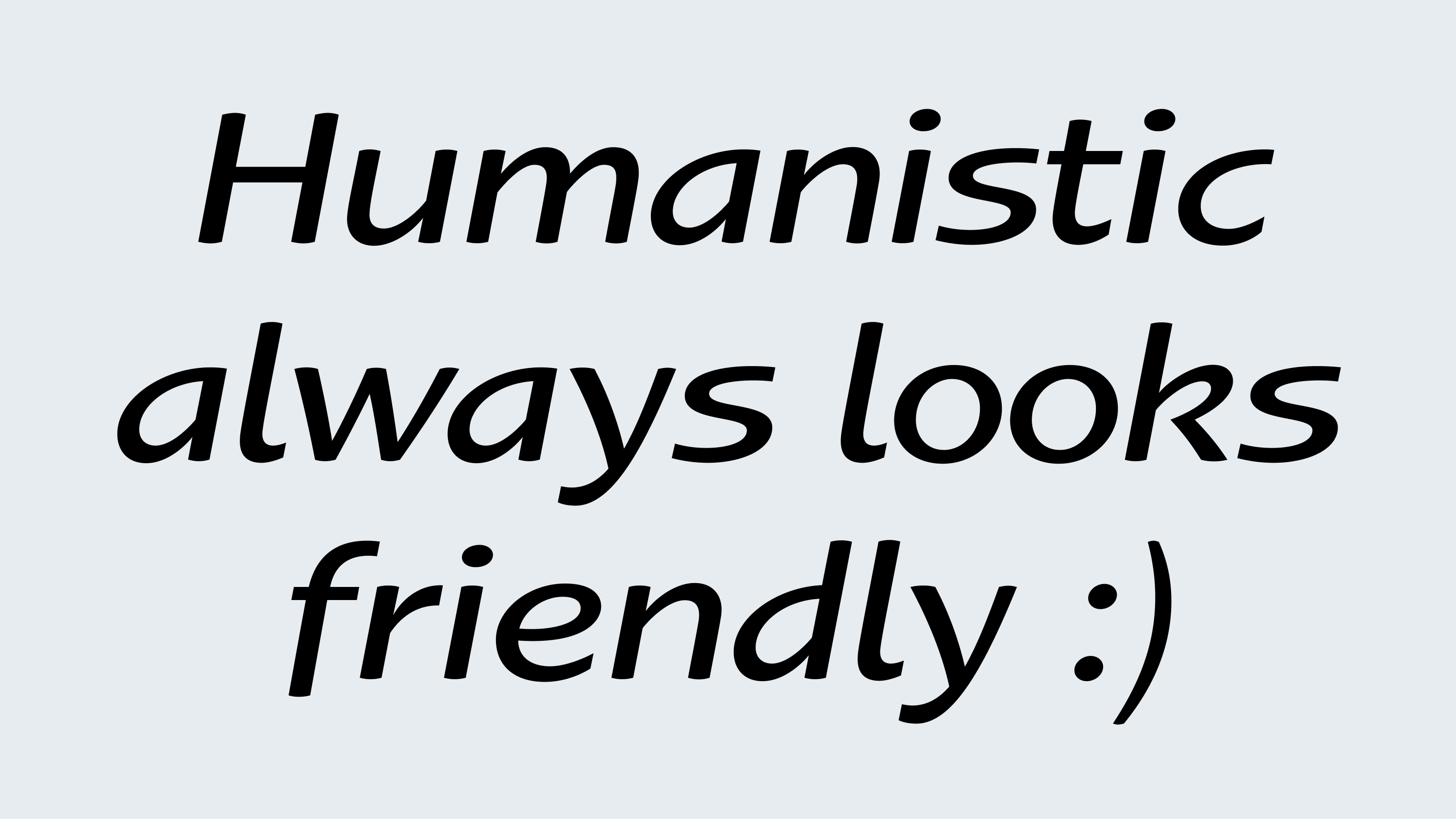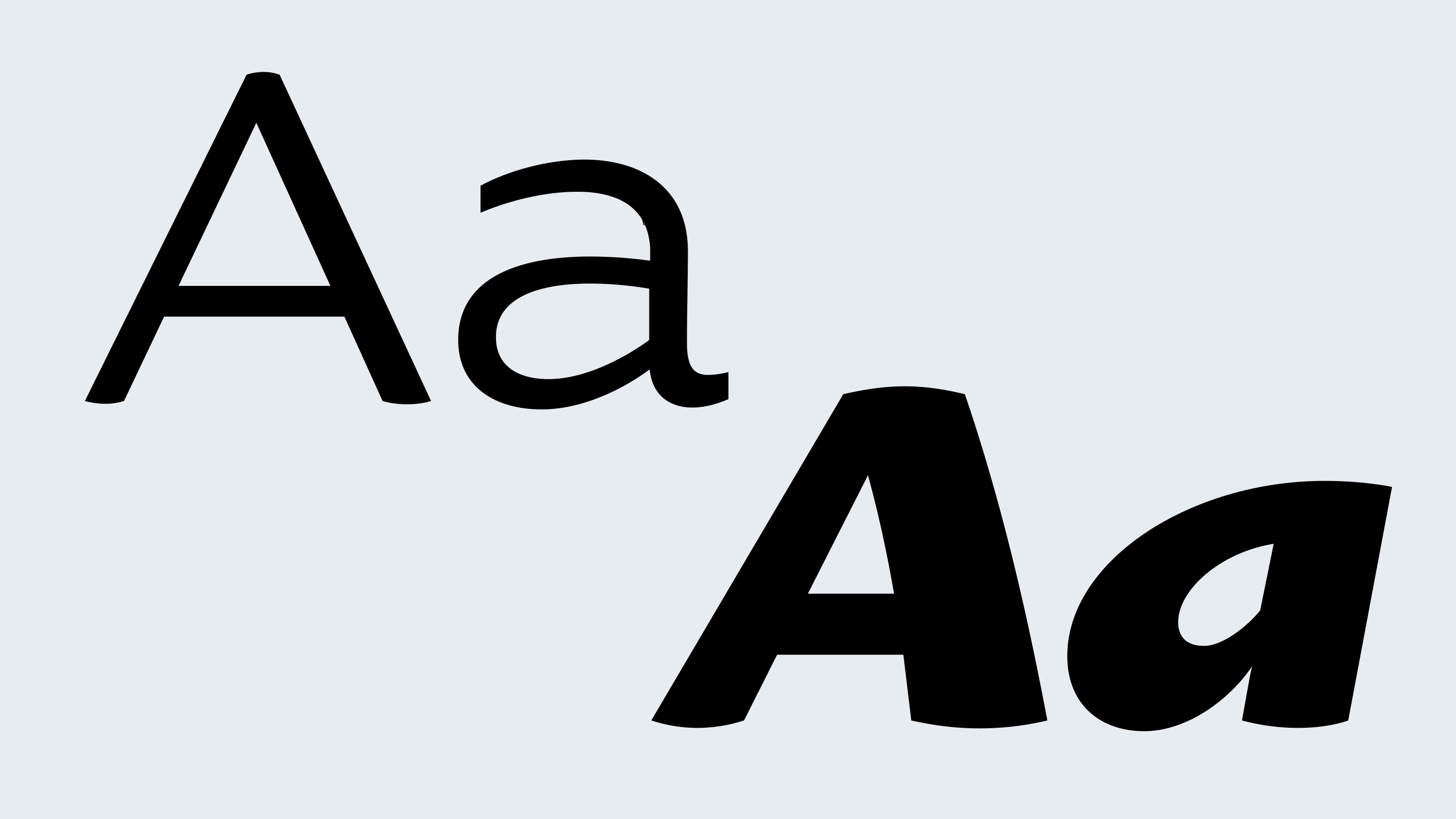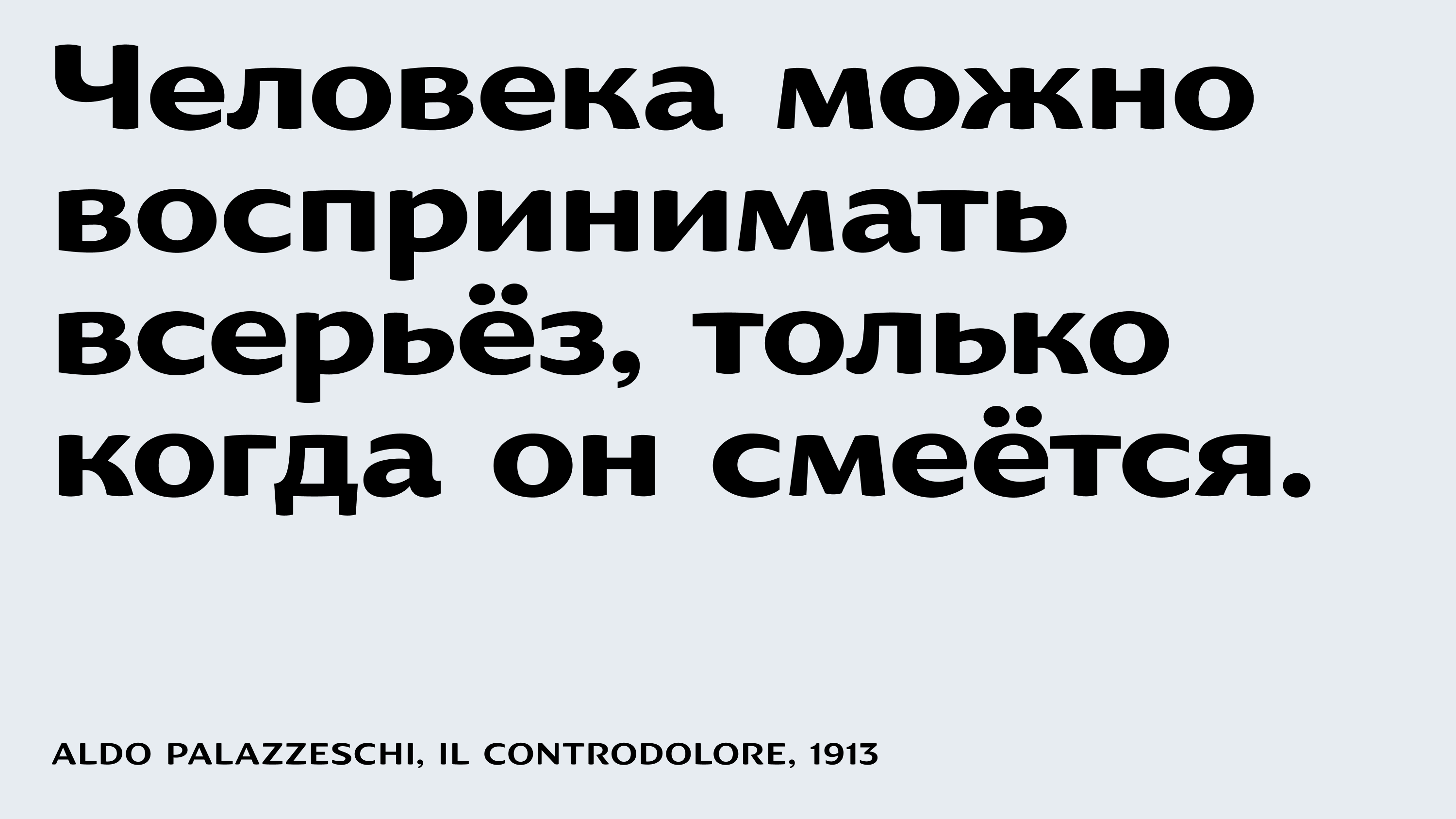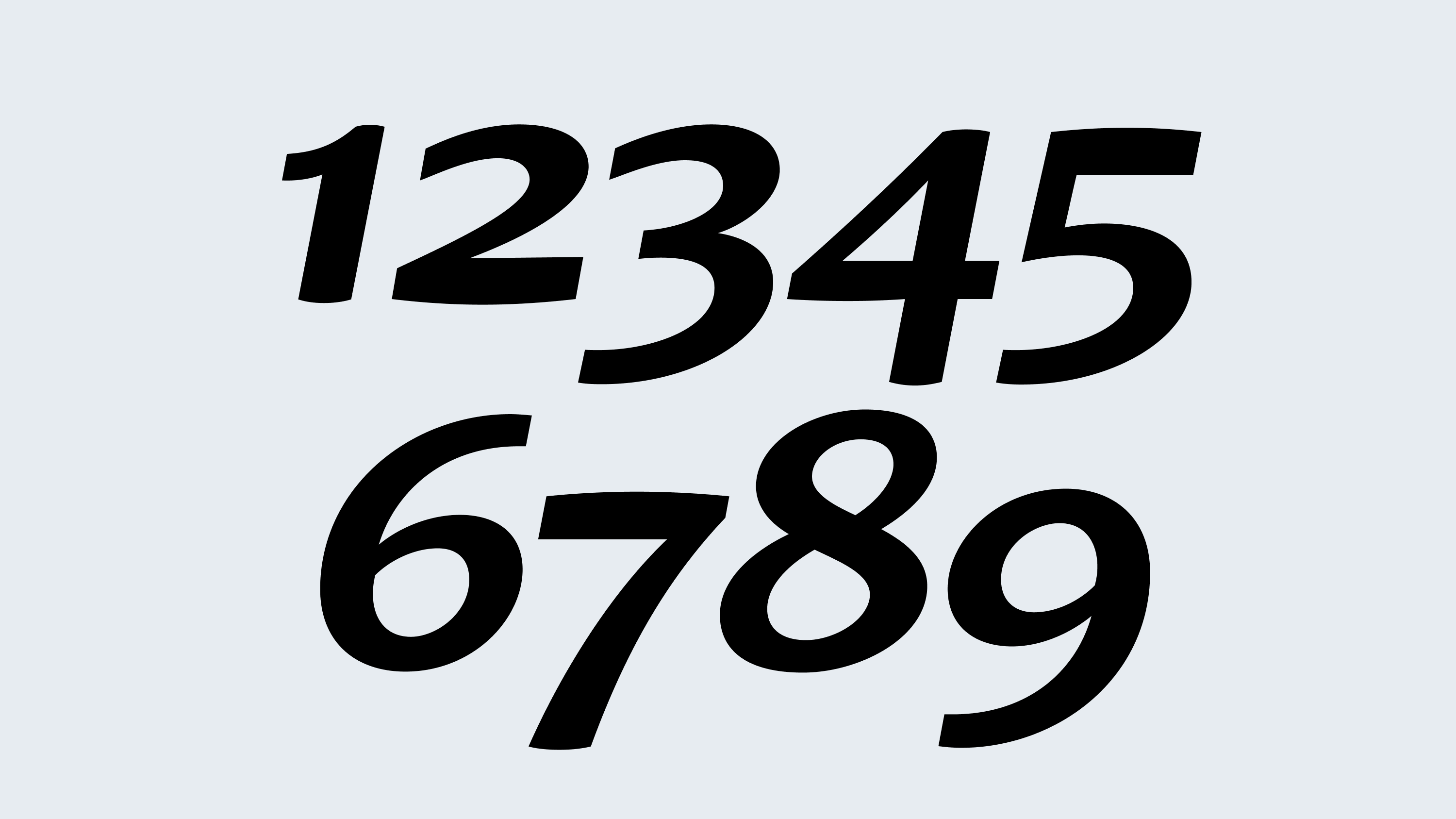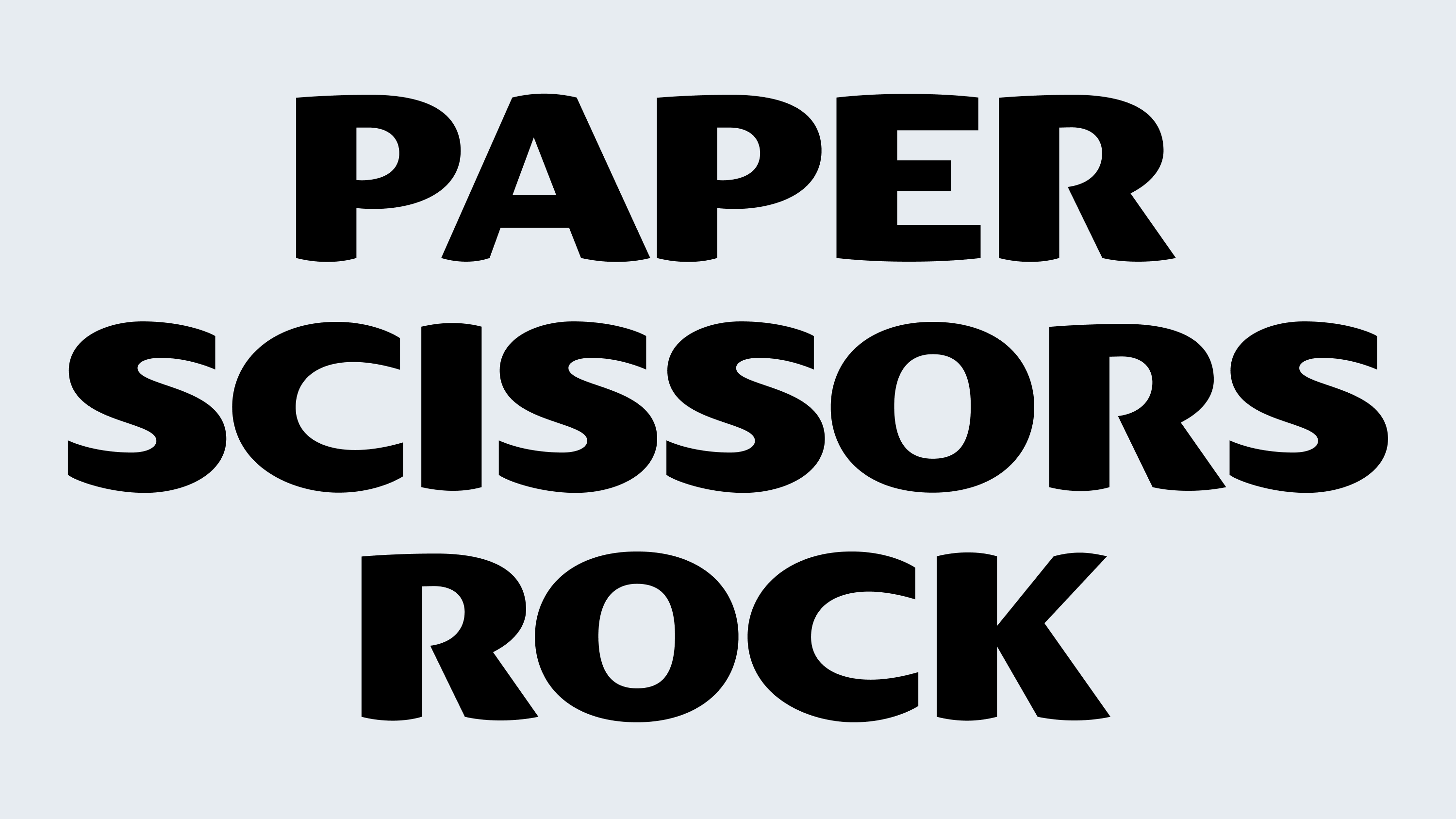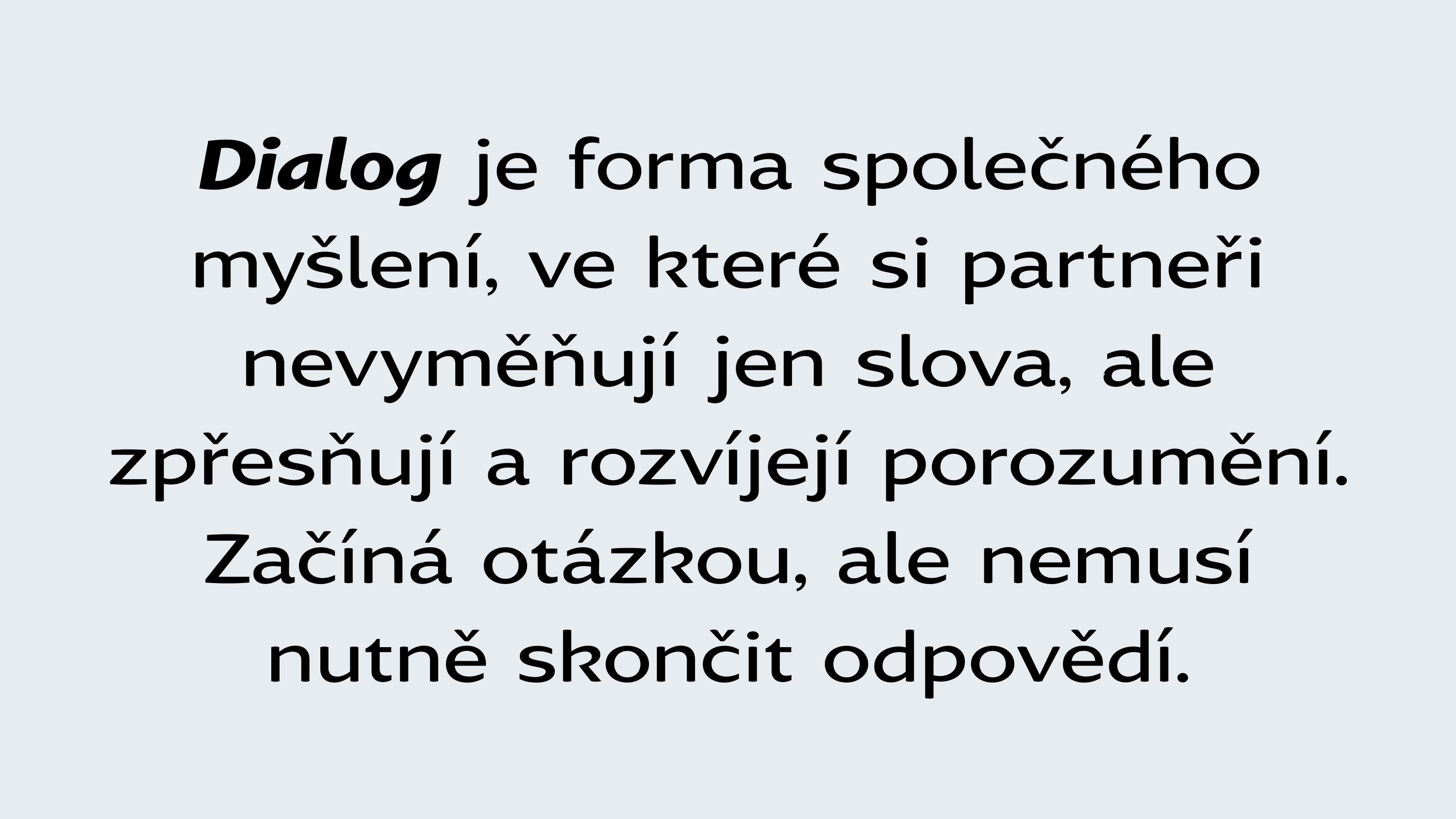
Canapa
Family
10 styles (5 italic)
Scripts
Latin, Cyrillic
Features
Contextual Alternates
Oldstyle/Tabular Figures
Designer
Denis Serebryakov
Canapa is a humanist sans-serif with wide proportions. The family includes ten styles, including italics. Its construction is simple, but not dry: the forms remain lively and dynamic. Its moderate neutrality is useful where typography calls for minimal emotional coloring.
Thanks to its proportions, Canapa performs best at large and medium sizes. It’s not a universal typeface, but it adapts easily to different tasks while maintaining a friendly tone.